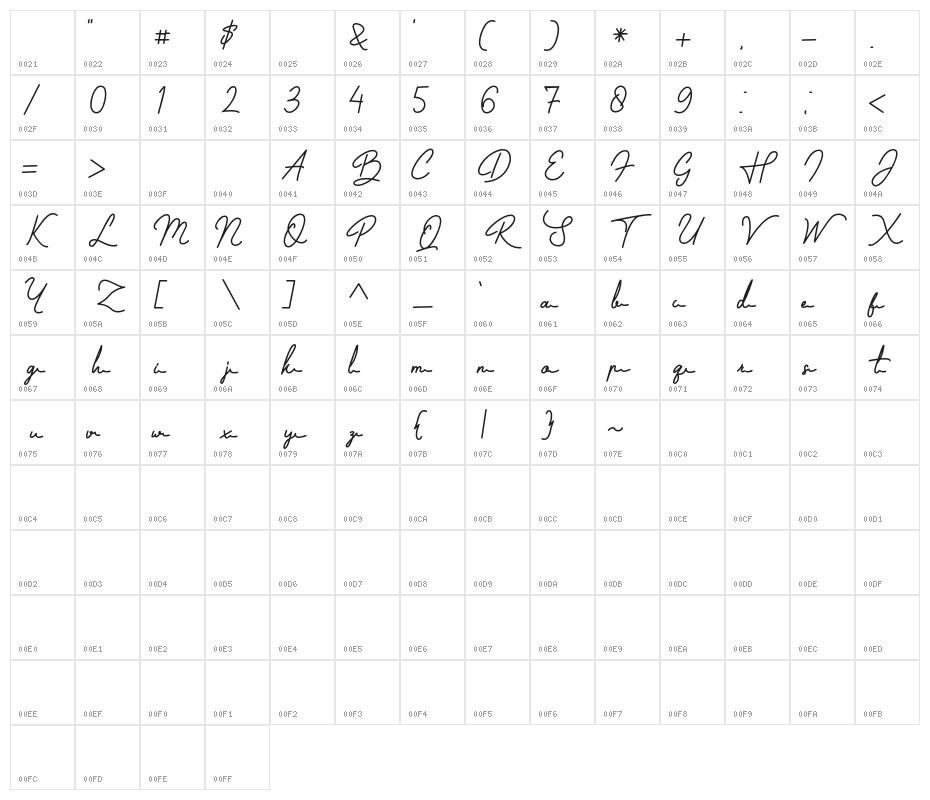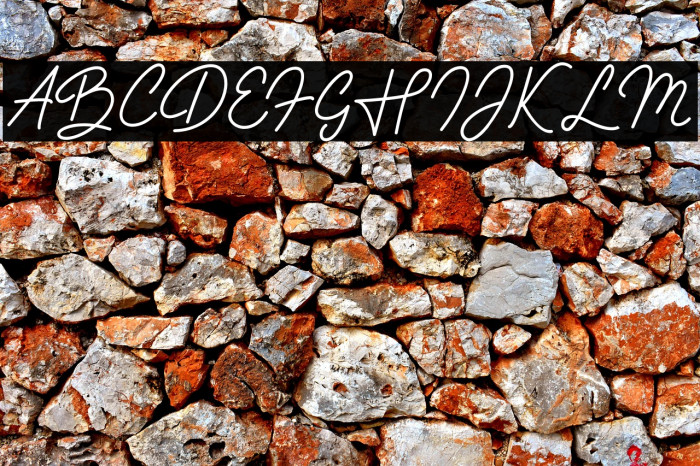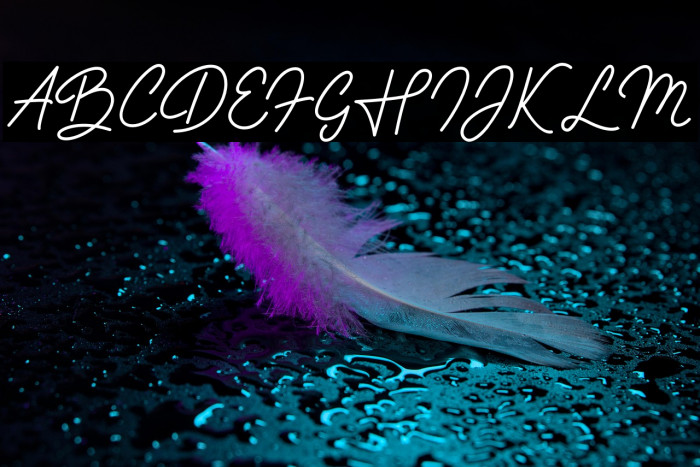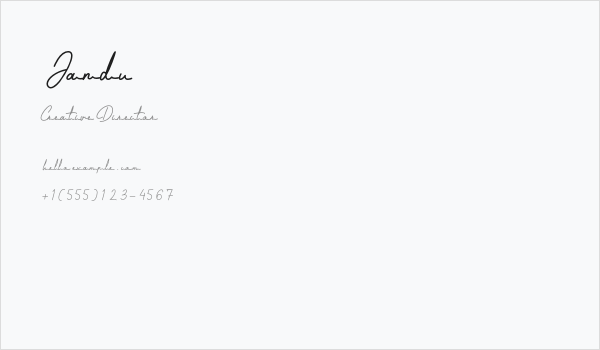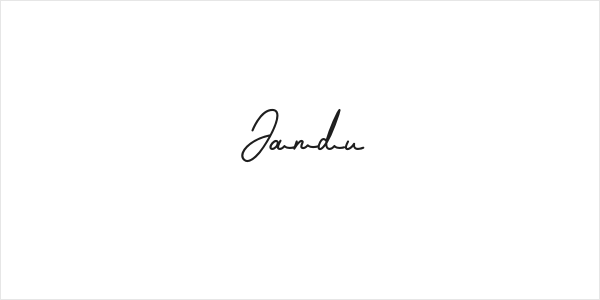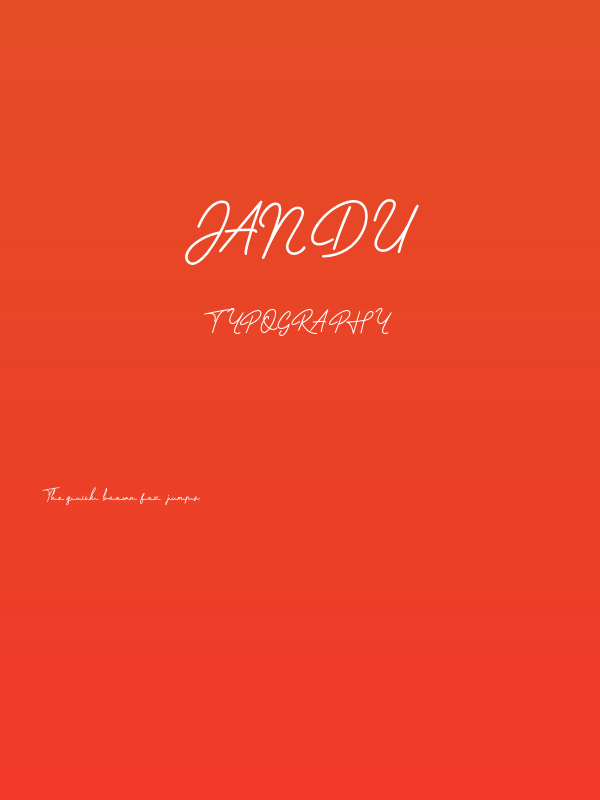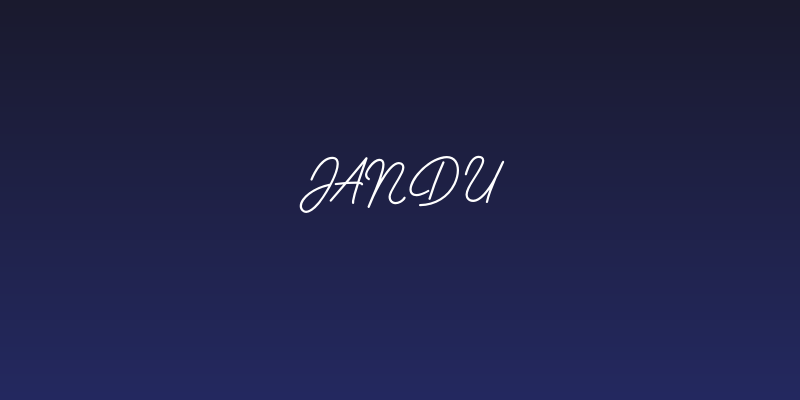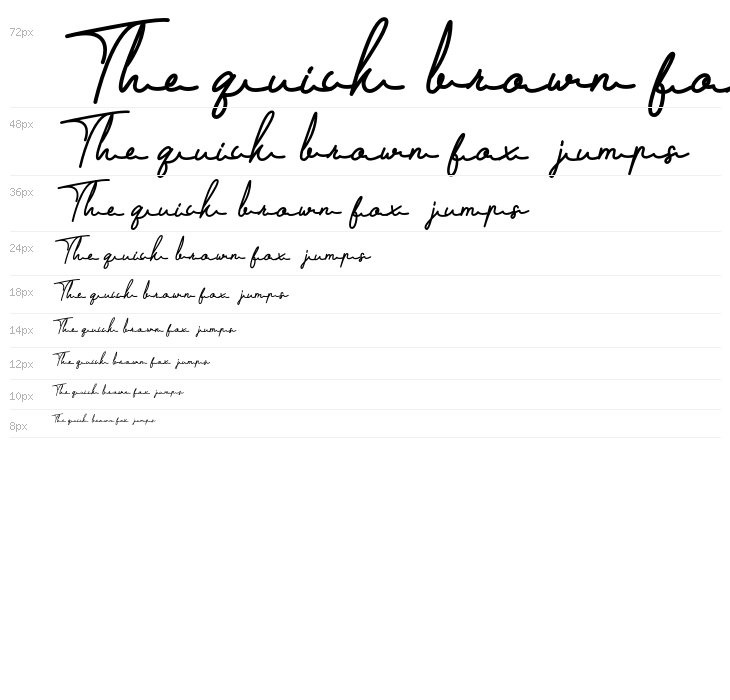
Jandu Font
Jandu Description
This elegant script font features a fluid, cursive style with smooth, flowing lines that mimic natural handwriting. The uppercase letters are slightly more elaborate, with subtle flourishes that add a touch of sophistication. The lowercase letters maintain a consistent slant, creating a harmonious and connected appearance. Numbers and special characters are designed to complement the overall script style, ensuring a cohesive look across all text elements. The font's graceful curves and balanced proportions make it suitable for a variety of design applications.
| Proposed Projects | Ideal for wedding invitations, greeting cards, personal branding, and elegant logo designs. |